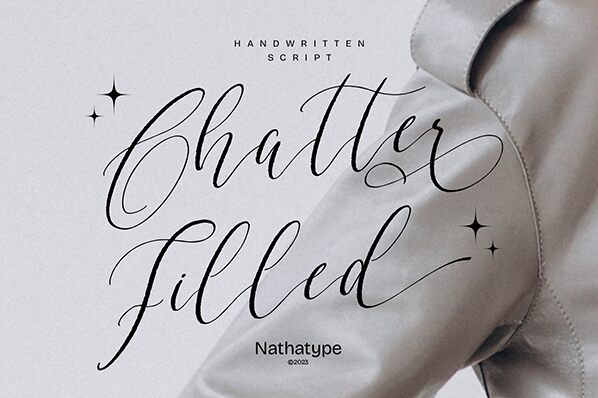
Chatter Filled font by Nathatype captivates with its light calligraphy style, featuring elegant cursive script letters, decorative elements, and a romantic feel. This free handwritten font exhibits a graceful flow that adds an unforgettable calligraphic flair to any design.
Use Chatter Filled in your wedding invitations, logos & branding projects, letterheads & stationery designs. Design the most artistic social media posts combining regular photographs with exceptional typography art captions. Work on home decorations in poster formats or trendy wall tapestries to fill empty spaces around you or clients’ homes. Also think of signages, personalized gifts & items like mugs, t-shirts & more!